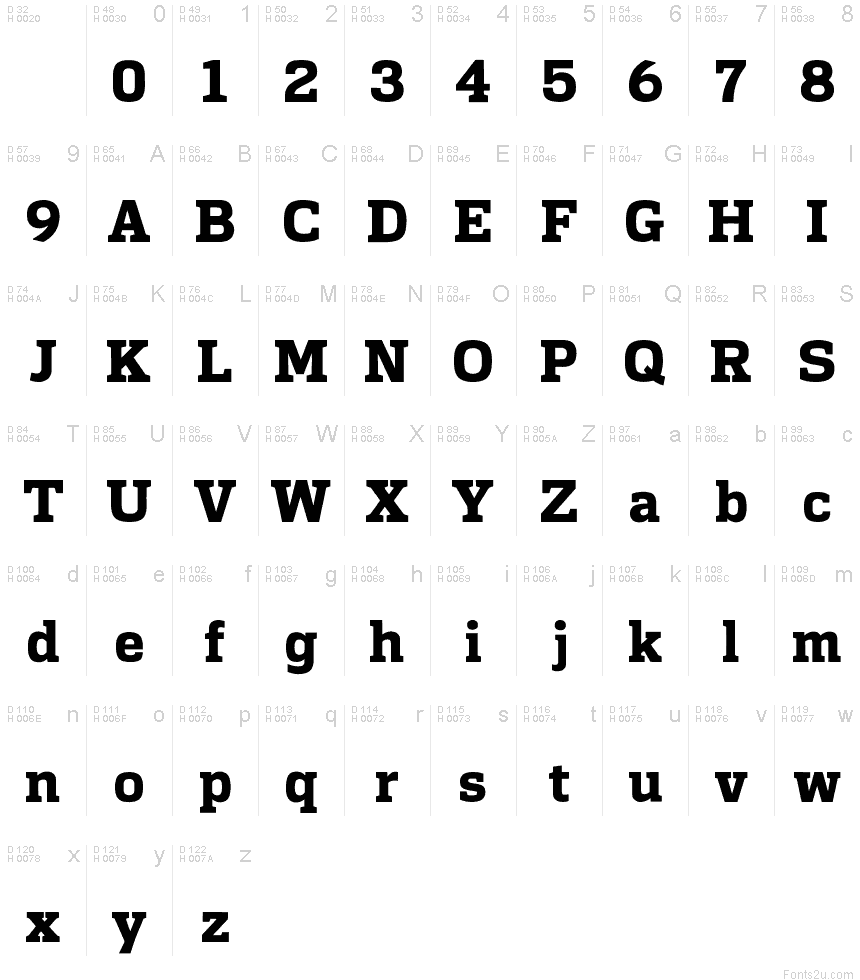
What Font Does The Nfl Use
What Font Does The Nfl Use. The college font is an enigma. Does anyone know the name of the font the washington redskins use?
The nfl logo was designed in the shape of a shield with eight stars and a crisper football in the upper part. Similar nfl football discussions football forum date; The nfl has the fourth biggest sports league in north america.
The Dallas Cowboys Logo Features A Blue Star, Representing Texas As “The Lone Star State”.
If you want to create professional printout, you should consider a commercial font. The lower part is the lettering of nfl. A simplistic typeface, this font dominated as the most commonly used font for the team logos in several professional sports.
The Eight Stars Represent The Eight Afc And Nfc Divisions.
It consists of 81 number of glyphs and 1000 units per em. There was a white field with deformed, red letters saying “nfl” on a blue shield. The font used for the logo of the nfl is very similar to freshman font.